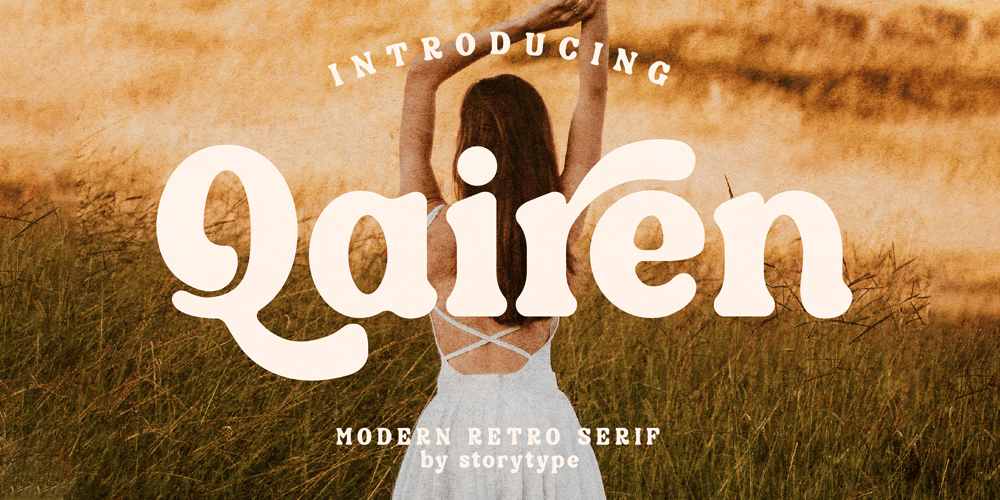
Qairen
Qairen font
Qairen Font Family was designed by Heru Utama Putra and published by Letterena Studios. Qairen contains 2 styles and family package options. Qairen is a classic typeface with a unique style and modern look. It is perfect for elegant and luxury logos, book or movie title design, fashion brands, magazines, clothes, lettering, quotes, and so much more.This font is PUA encoded, which means you can access all of the glyphs and swashes with ease!